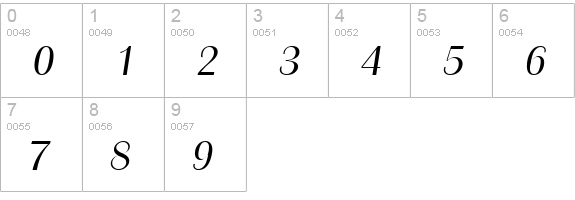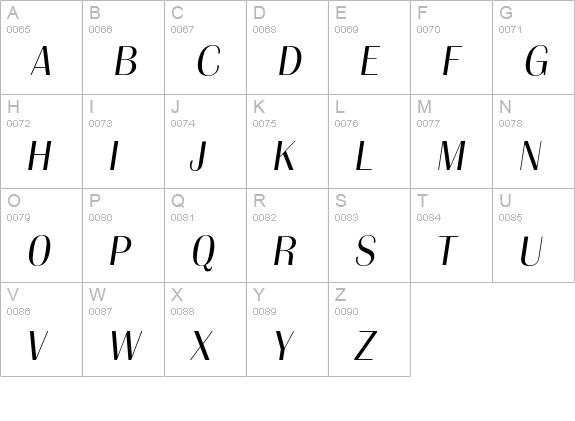
Grenoble Light SF Italic is a refined, elegant, italic variant in the Grenoble typeface family \xE2\x80\x94 well suited to elegant body text, refined sub-headings, and luxury branding.
Introducing Grenoble Light SF Italic font - a sleek and modern typeface that exudes elegance and sophistication. Its clean lines and subtle curves make it perfect for a wide range of design projects, from branding to editorial design. The italic style adds a touch of flair and personality, making your text stand out in a unique way. What sets Grenoble Light SF Italic font apart is not only its stylish design but also the fact that it is completely free to download. Yes, you read that right - this stunning font is available for free at FontsMarket.com. Now you can elevate your designs without breaking the bank, thanks to this generous offer. Whether you're working on a website, a poster, a logo, or any other creative project, Grenoble Light SF Italic font is sure to make a statement. Download it today and let your creativity shine with this beautiful and versatile typeface.